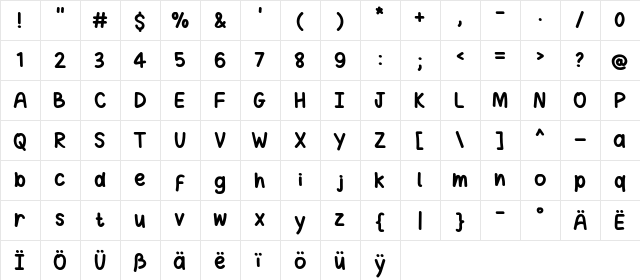
coconutz Regular
| Designer | typefactory |
Design Context for coconutz Typeface
coconutz takes a measured approach to typography — its balanced proportions and neutral character make it a reliable workhorse for both digital and print work.